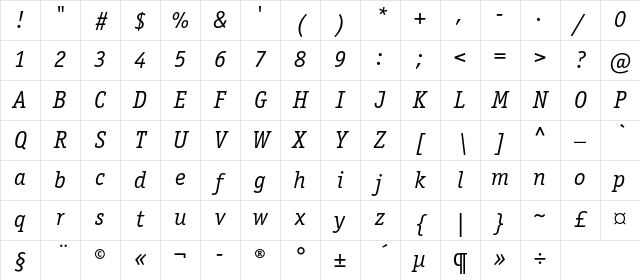
Complete OfficinaSerifBookC Italic glyph index. Displaying only characters natively supported by OfficinaSerifBookC Italic font.
OfficinaSerifBookC carries the refined structure of traditional serif typography, with bracketed terminals and considered proportions that communicate credibility and craft. The slanted form adds forward momentum and visual energy.